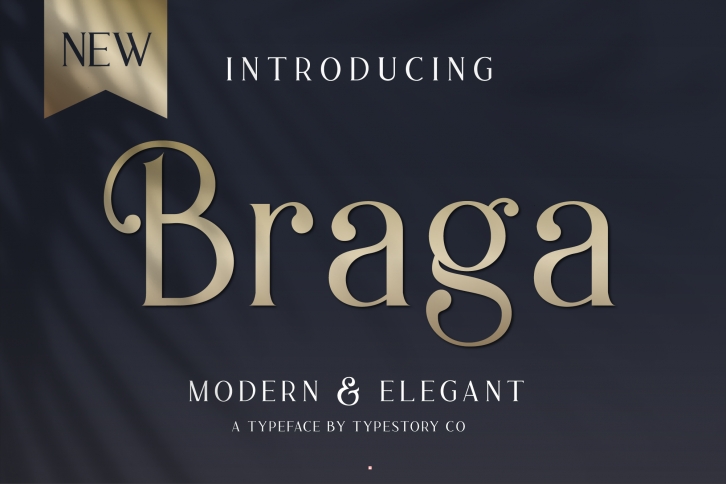
Braga FONT Download
Braga is a gorgeous font that was realeased on December 11, 2019. The font can be used in many style contexts and design environments. Perfect for invitations, magazines, websites, logos, and more! It was designed by Typestory and the file size is 18.44 MB. Thanks for checking out this font!